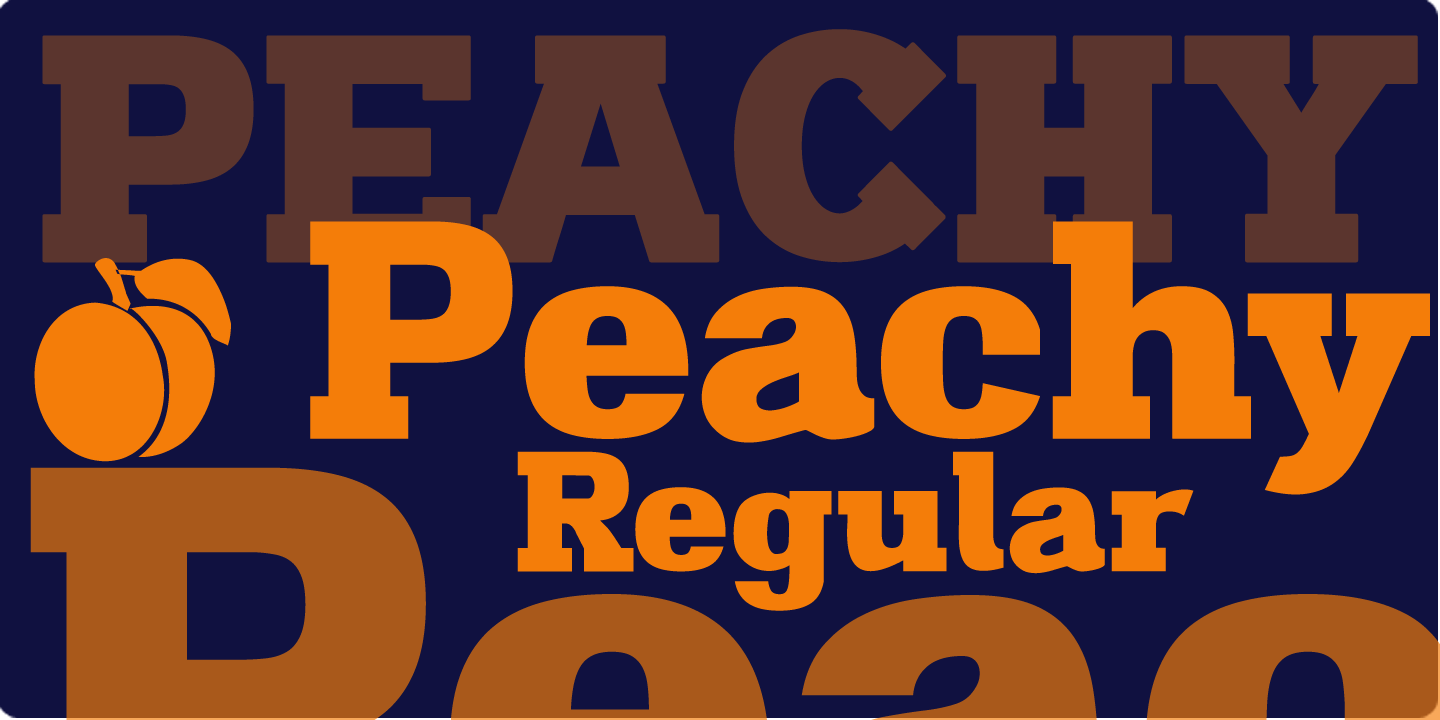
Peachy Font is perfect for summer fashion brands, fruit-themed restaurants, sweet dessert menus, cheerful children's products, sunny lifestyle blogs, tropical vacation materials, optimistic greeting cards, and vibrant wellness branding.
What makes Peachy Font exciting is its radiant warmth and sunny disposition that instantly brightens any design with the fresh sweetness of summer peaches. The soft, rounded letterforms and cheerful character design create an atmosphere of joy and optimism that captures the essence of golden sunshine and carefree moments.
Peachy Font family includes regular, bold, light, script, and bubbly versions, plus fruity ornaments, summer symbols, and sunshine decorative elements that enhance the joyful typography experience with sweet authenticity.
Brighten your designs with Peachy Font Free Download, the ultimate choice for projects radiating positivity and summer sweetness. This delightful typeface embodies the essence of golden hour magic through letterforms that seem kissed by sunshine and sweetened by nature's perfect fruit. The lovingly crafted characters feature gentle curves and optimistic energy that make every word feel like a warm summer breeze carrying promises of happiness. Lifestyle brands and cheerful designers consistently select this font for projects requiring authentic connection to joy and natural sweetness that resonates with audiences seeking positivity. Its comprehensive collection of sunny elements provides unlimited possibilities for creating memorable experiences that celebrate life's sweetest moments with genuine warmth and infectious optimism. Experience the uplifting power of sunshine typography that transforms ordinary communications into rays of happiness, establishing your brand as a source of natural joy in a world that desperately needs more sweetness and light.